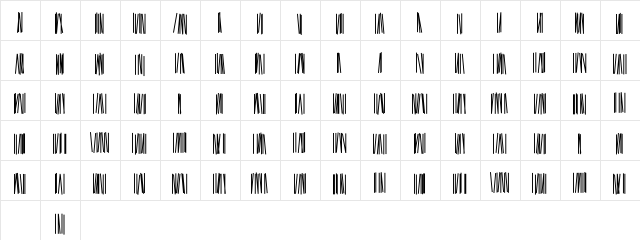
Ollie-TheEvidence Medium Font Preview
Ollie-TheEvidence Medium
Design Context for Ollie-TheEvidence Typeface
Ollie-TheEvidence is a composed and adaptable typeface that performs quietly and consistently across a wide range of design contexts.